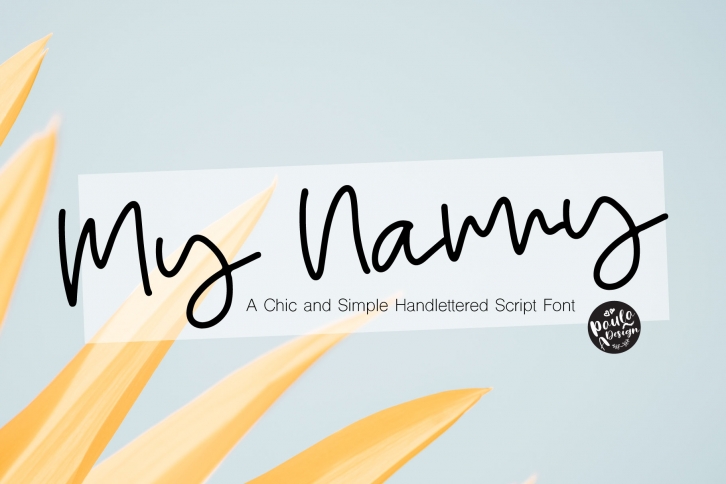
My Nanny is a beautiful font that was designed by Paula Type. It's a great choice for designers and creatives who need such a font. It was released on October 4, 2018 and the file size is 1.26 MB. My Nanny may give a more youthful, expressive and casual look to your project. It is a very beautiful, refined, elegant, and high-quality font.